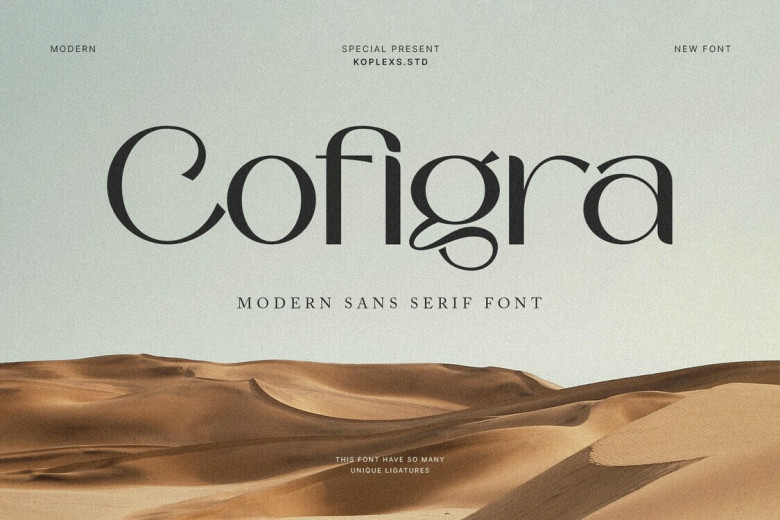
Cofigra Font
Cofigra Contemporary Sans Serif Font is an attractive collection of modern feminine, gorgeous, beautiful, and sophisticated characters, perfect for every branding or design need. Cofigra Modern Sans Serif Font combines beauty and sophistication for use across many purposes such as book covers, logos, fashion magazines, perfume labels or invitations – you will discover an assortment of stunning characters as well as alternative characters in this font which will leave you speechless!
Cofigra Sans Serif Font